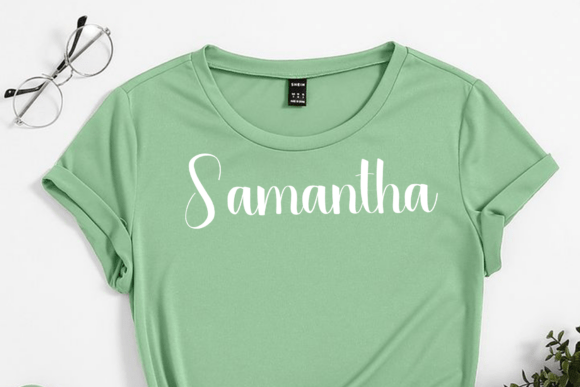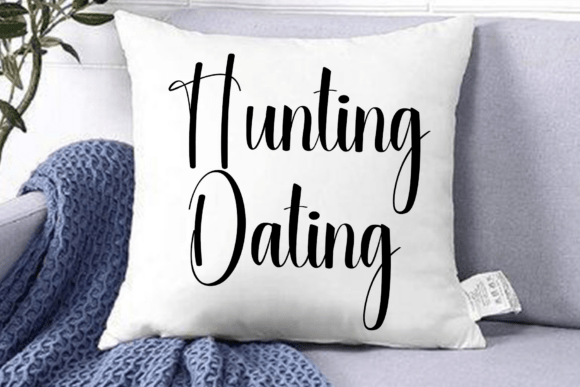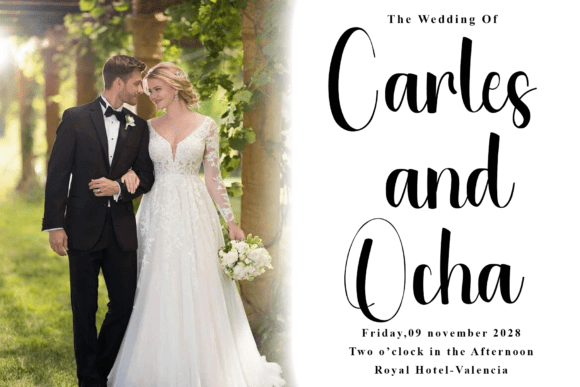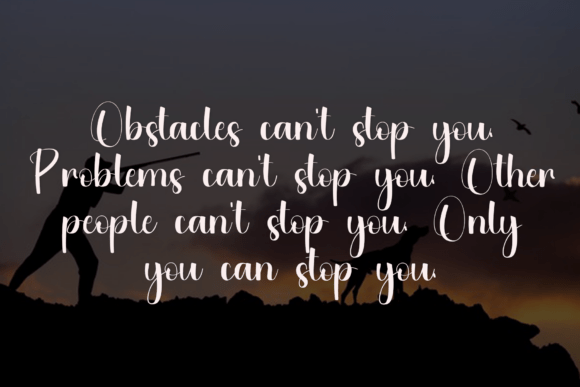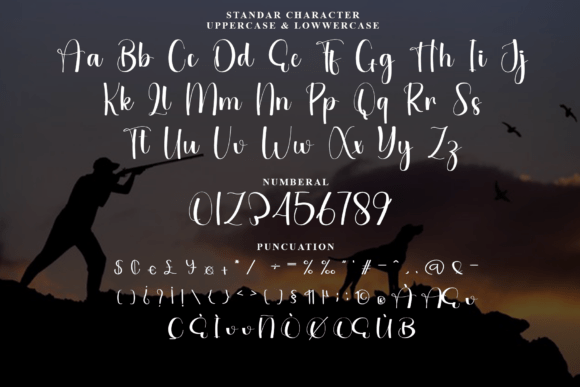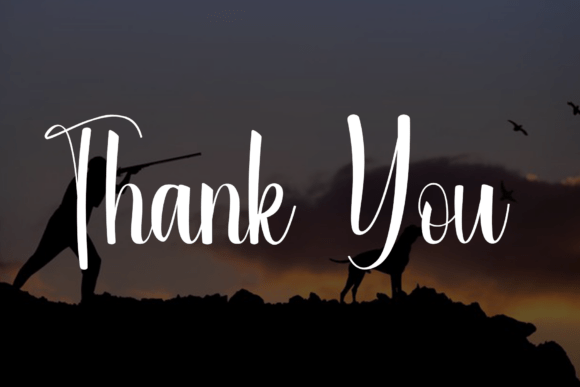
Unleashing the Great Outdoors: Introducing the Animal Hunting Font
There’s something about the great outdoors that sparks our creativity. Perhaps it’s the thrill of the hunt, the rush of adrenaline as we track our prey, or the serenity of watching the sun rise over the wilderness. Whatever it is, it’s a feeling that designers know all too well – and one that we’ve tried to capture in our latest addition to our modern handwritten collection: the Animal Hunting Font.
This distinctive typeface is designed to evoke the precision and focus of the wilderness, with tall, elegant letterforms and sharp, expressive terminals that give it a unique, high-end aesthetic. Whether you’re designing for outdoor apparel, adventure travel blogs, or sports magazines, the Animal Hunting Font is a valuable asset that will give your designs a sophisticated, raw, and authentic edge.
Key Features of Animal Hunting Font
- Unique Characteristic: Features a bold and rugged design, inspired by ancient hunting scripts, giving it a unique and distinctive look.
- Font Styles: Includes a range of font styles, including Regular, Bold, Italic, and Bold Italic, offering versatility for different design applications.
Review: Animal Hunting Font
As a designer, I’m always excited to try out new fonts and see if they live up to their promise. The Animal Hunting Font is no exception. Here’s my honest review:
- The font’s unique, hand-drawn style gives it a quirky and eye-catching feel that’s perfect for headings and titles.
- The font’s bold and playful personality makes it great for use in outdoor or adventure-themed projects.
- The font is highly customizable, with a range of weights and styles available to suit different design needs.
- The font may not be suitable for use in body text, as it can be difficult to read at smaller font sizes.
- The font’s whimsical style may not appeal to all designers or clients, so it’s essential to consider your target audience before using it.
- The font’s customizability can also make it overwhelming to use, especially for designers who are not familiar with font manipulation.
The Animal Hunting Font is a fun and unique addition to any designer’s toolkit. While it may have some limitations, its quirky style and high level of customizability make it a great choice for the right project. Just be sure to consider your audience and design needs before using it.
Tips for Getting the Most Out of the Animal Hunting Font
Use the Animal Hunting Font to add a touch of ruggedness and adventure to your designs.
Pair the font with bold, earthy colors to enhance its hunting theme.
Experiment with different font sizes and styles to create a unique visual effect.
Use the Animal Hunting Font for outdoor-themed designs, such as:
Outdoor apparel and gear marketing materials
Wildlife conservation campaigns
Adventure travel brochures
Outdoor gear product packaging